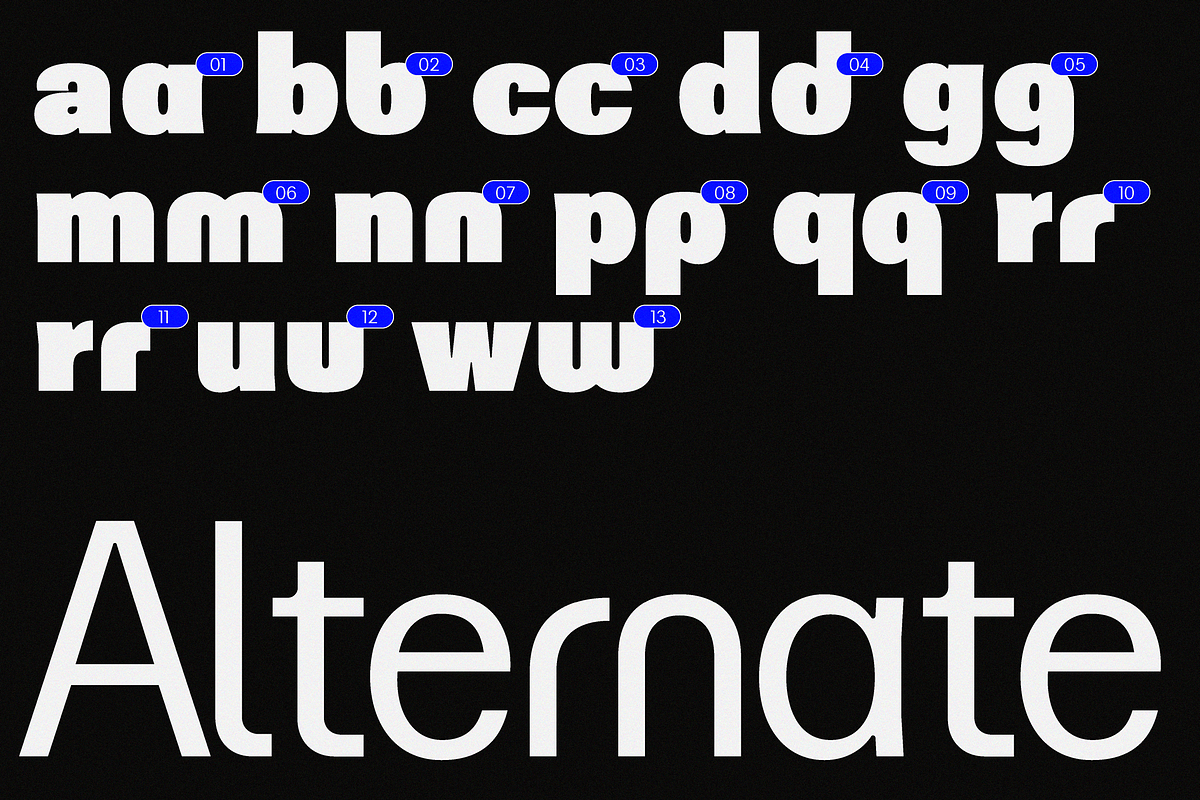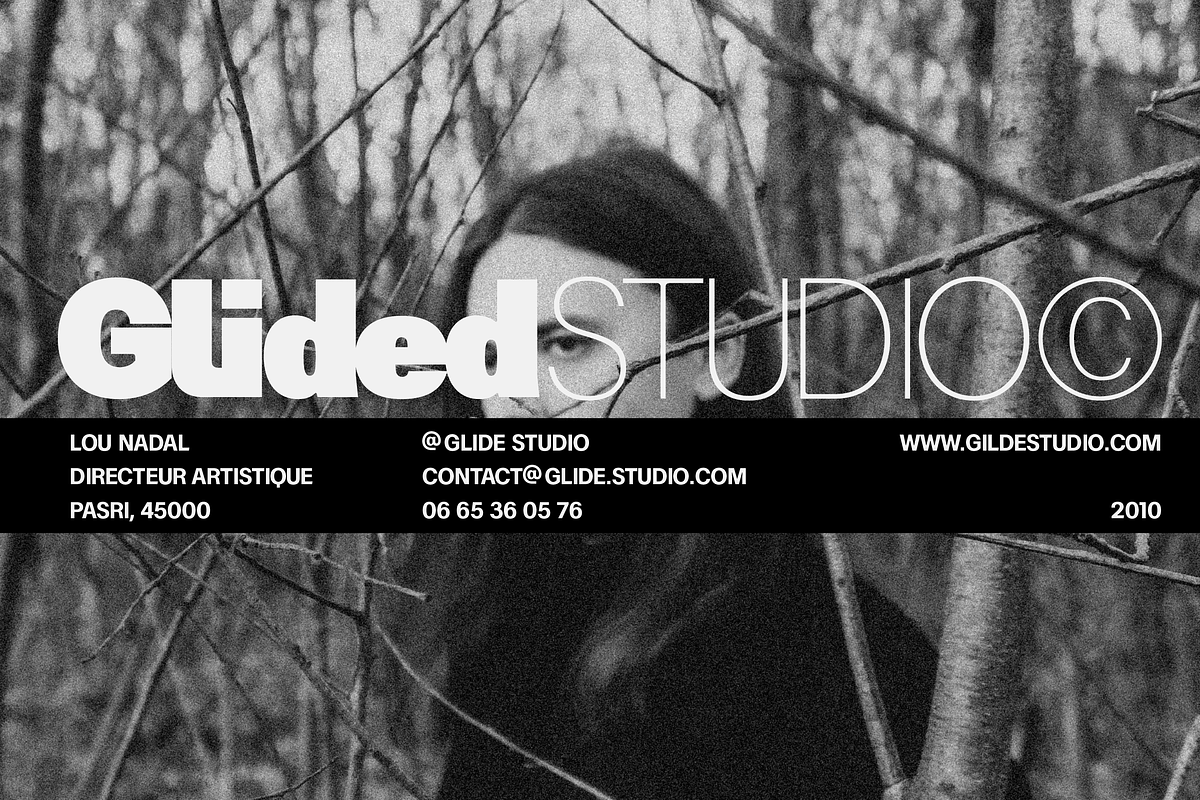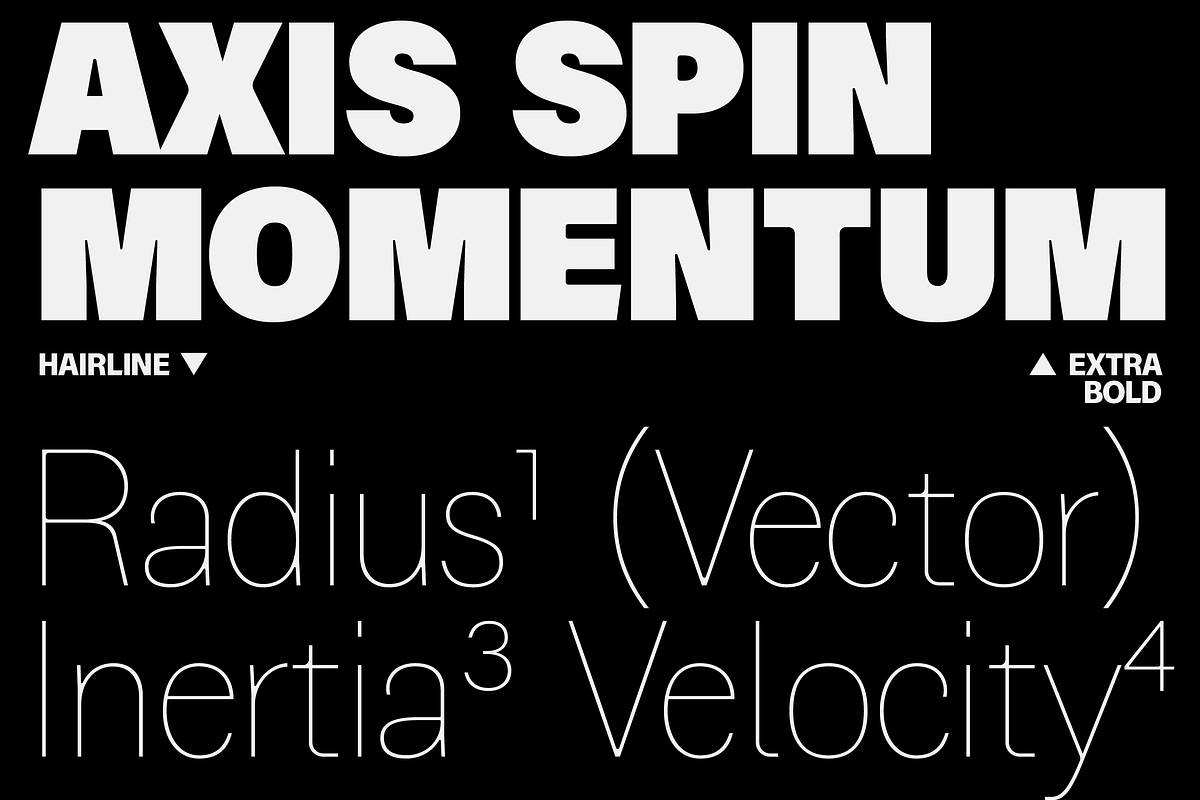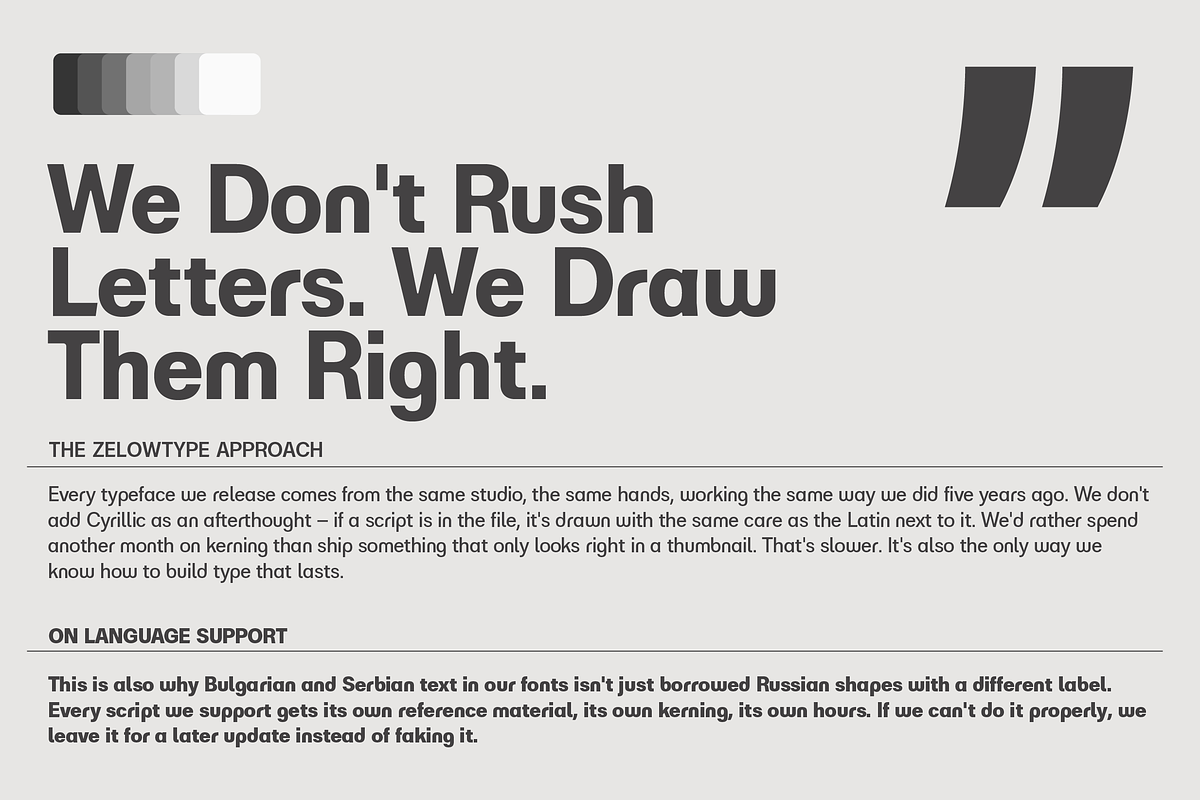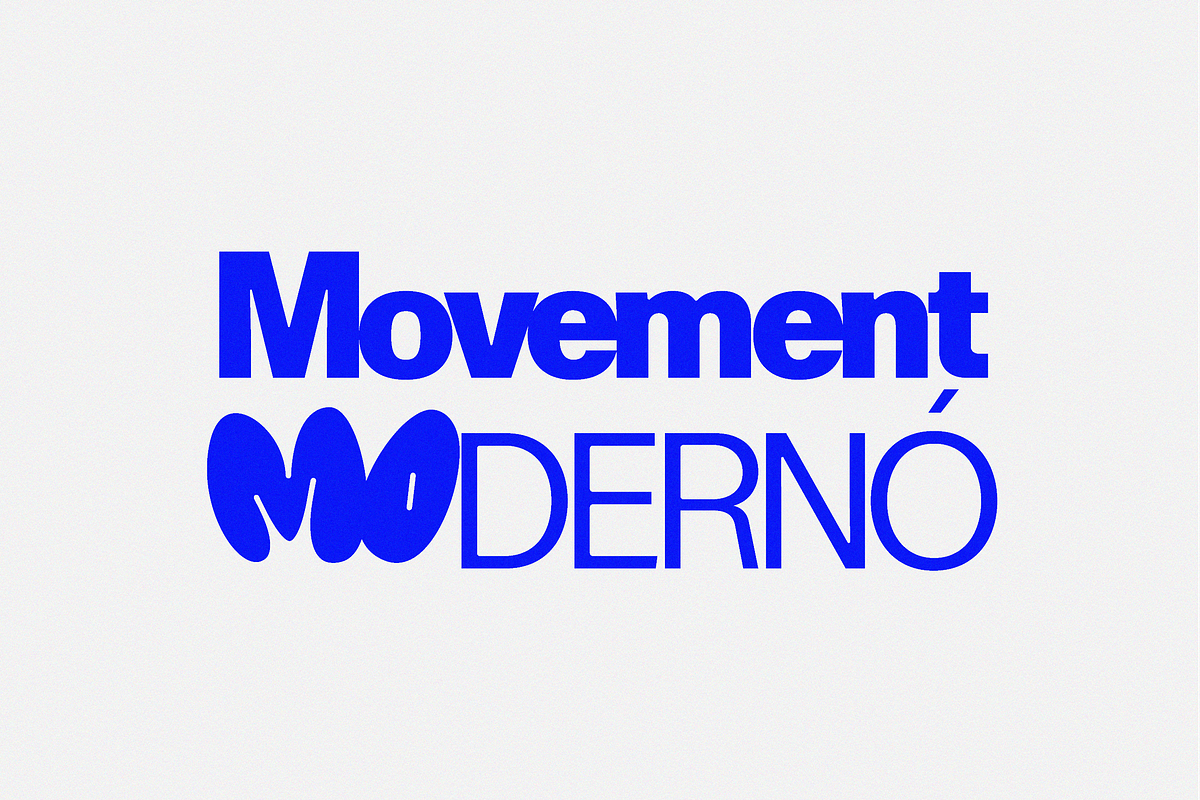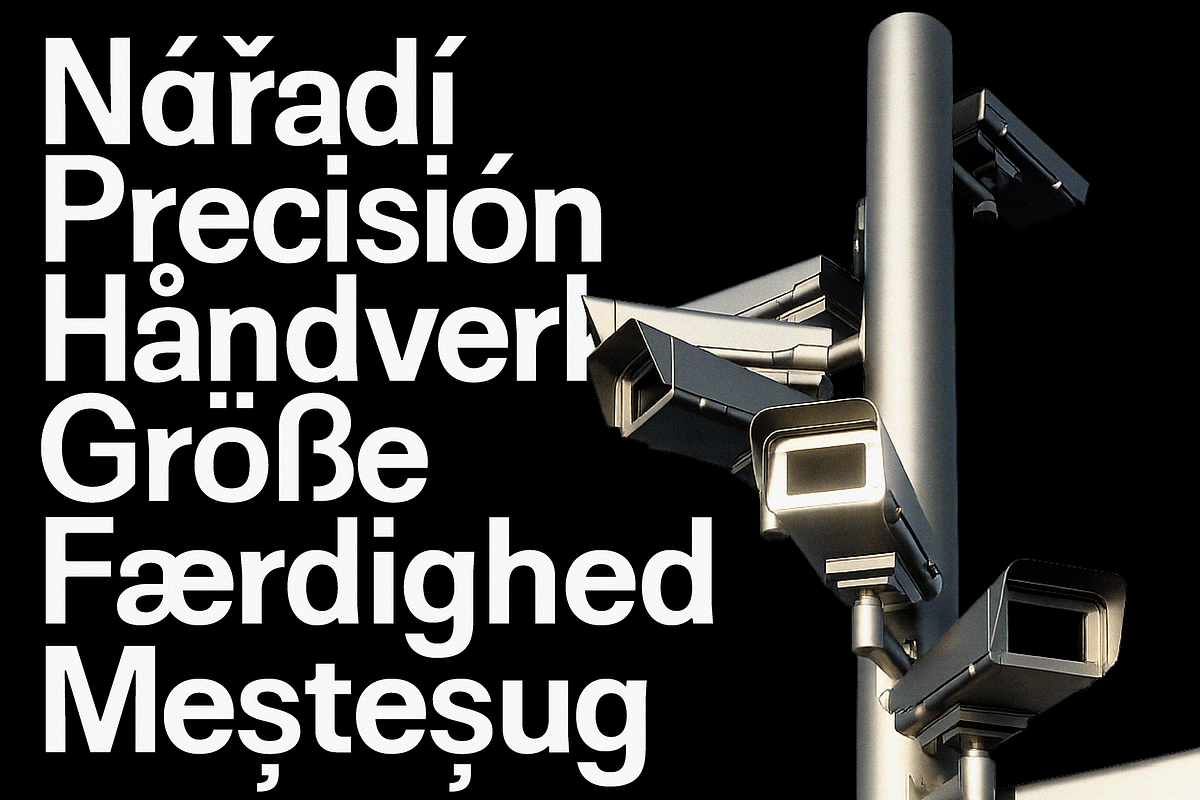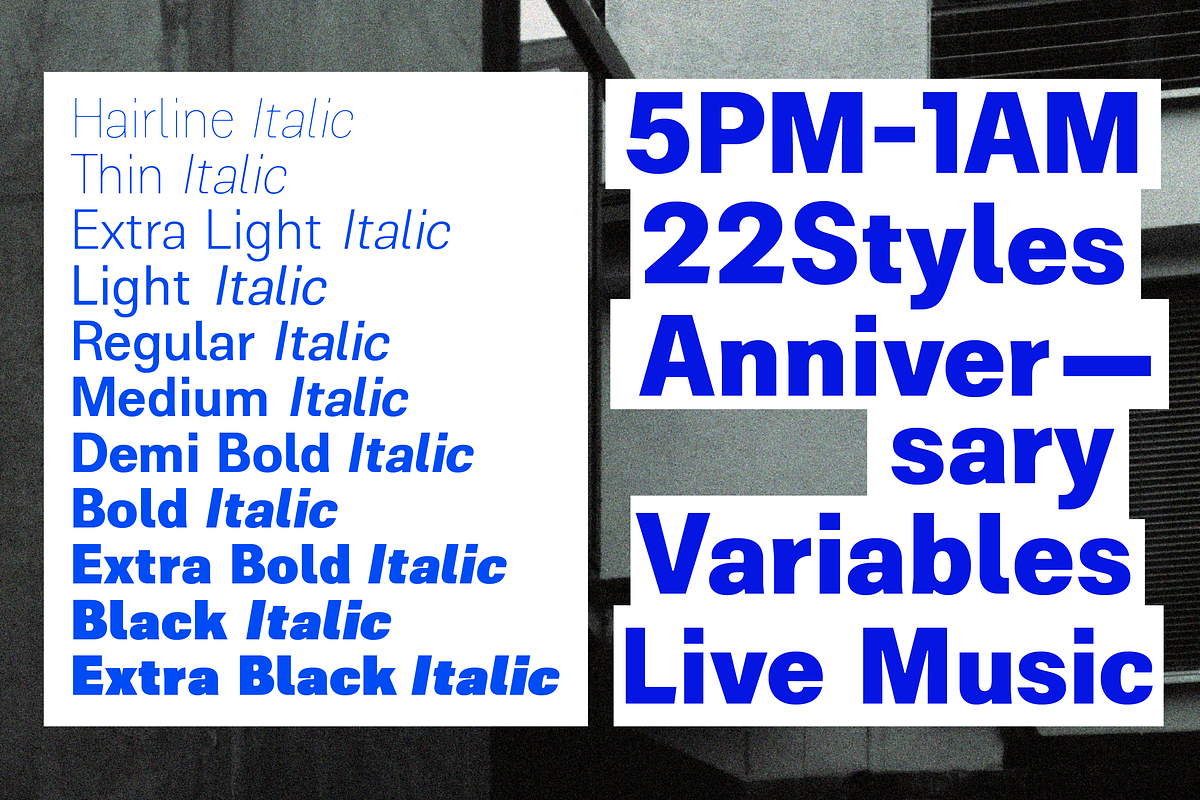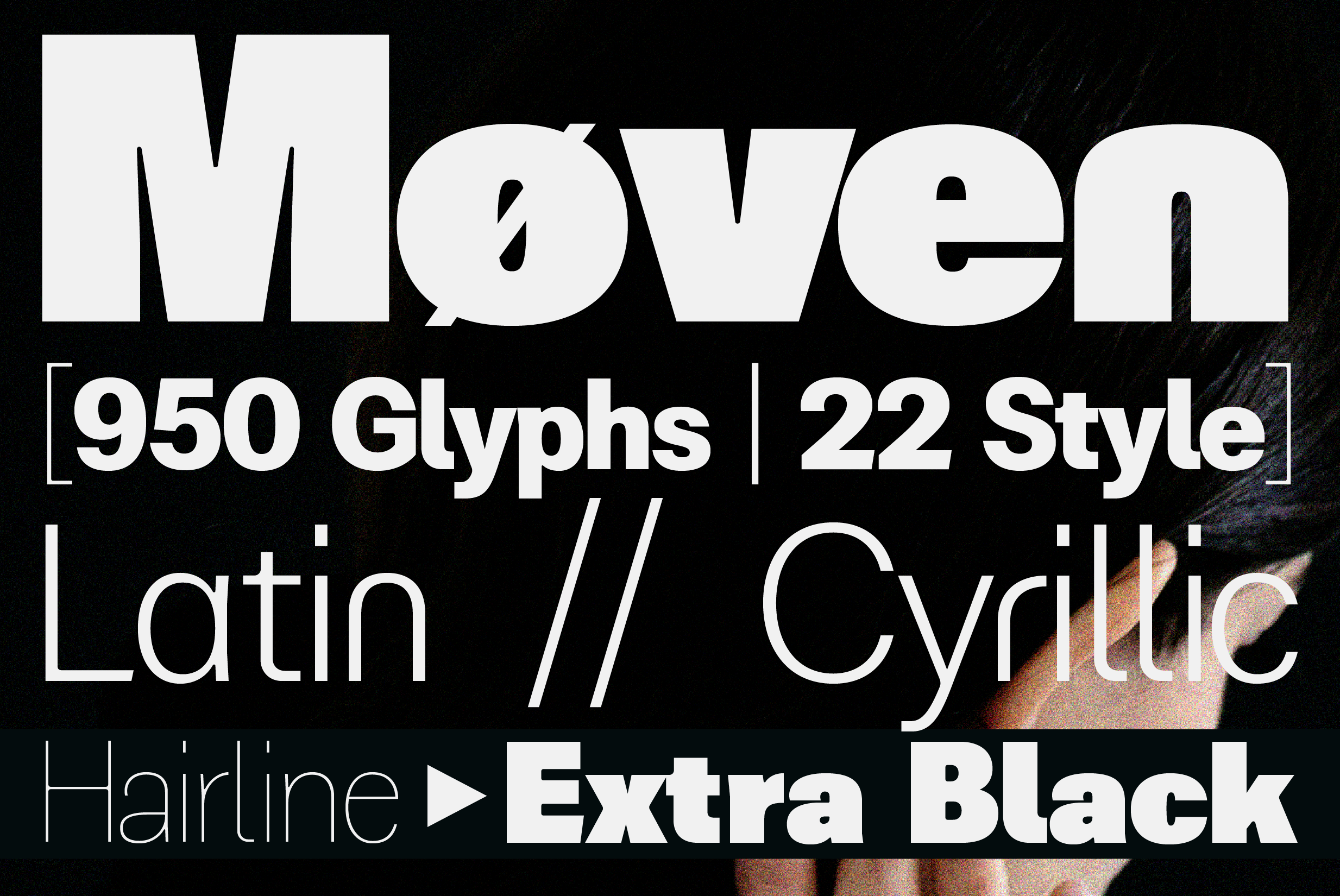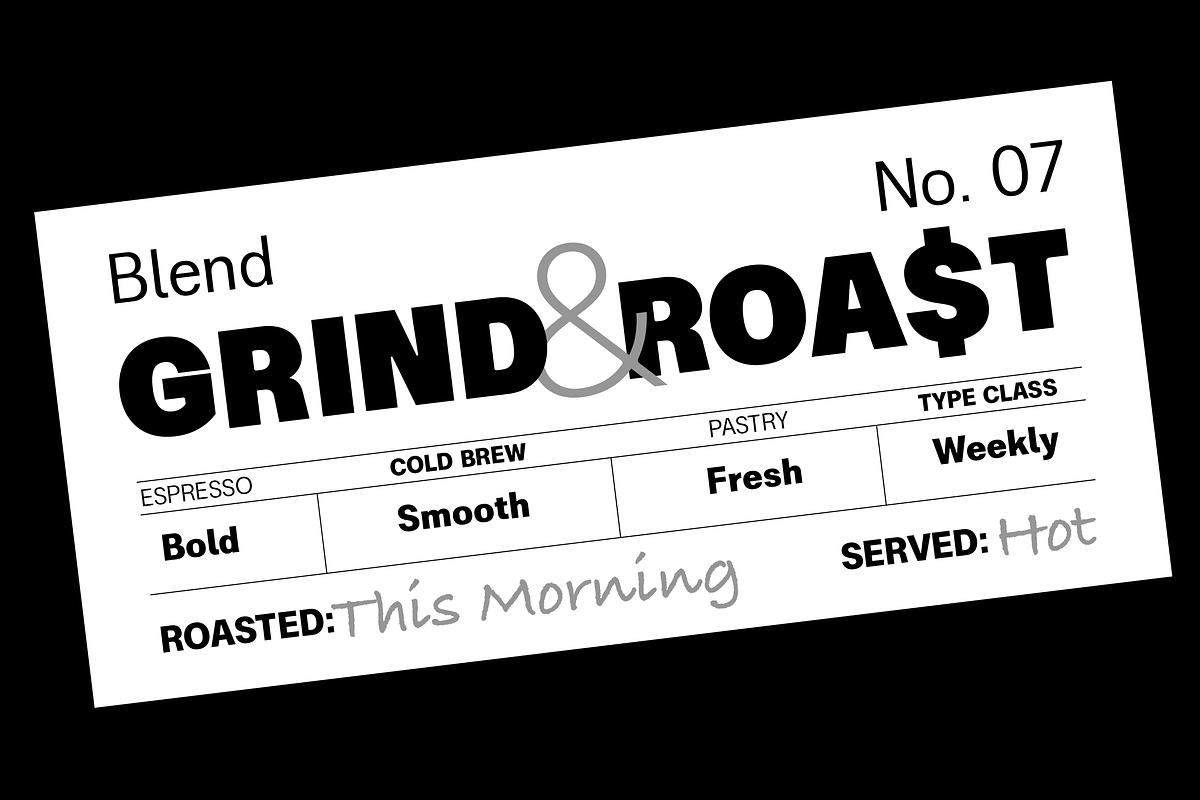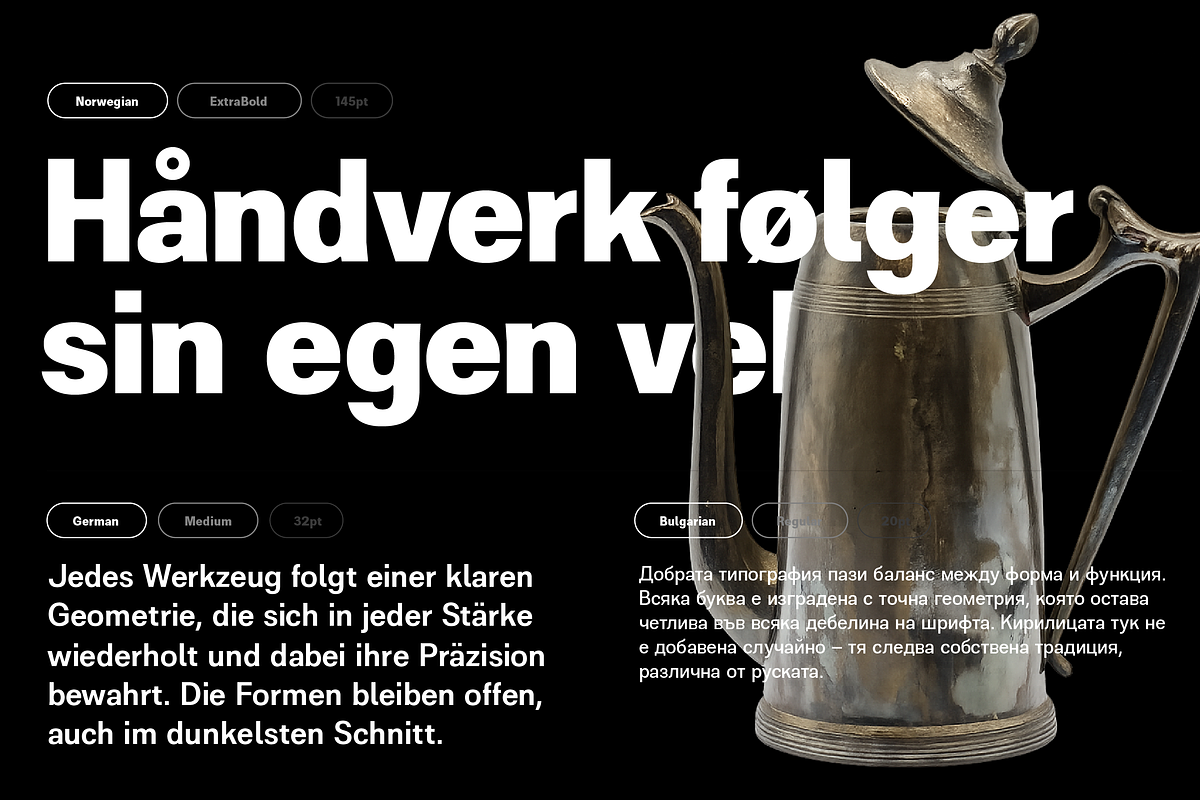
ZT Moven Sans - 22 Fonts & Variable
ZT Moven is a geometric sans-serif built for designers who need more than one alphabet done right. Where most typefaces treat Cyrillic as an afterthought, ZT Moven draws it as its own script — with dedicated localised forms for Bulgarian and Serbian, not borrowed Russian letterforms with a different label.
The family spans eleven weights from Hairline to ExtraBlack, in both upright and italic, for 22 styles total. Counters stay open and consistent at every weight, from the lightest hairline to the heaviest black — no pinched bowls, no clogged black weights.
Features of ZT Moven:
22 Styles (11 Regular + 11 Italic)
950 Glyphs
Latin Extended + Cyrillic (Russian, Ukrainian, Bulgarian, Serbian)
Dedicated Localised Forms for Bulgarian and Serbian
Stylistic Alternates (ss01)
OSF, TF, and TOSF Figures
Case-Sensitive Forms, Ordinals, Slashed Zero, Fractions
Subscript & Superscript
Extended Currency Set
ZT Moven is perfect for brand identity, logo design, editorial layouts, social media graphics, packaging, posters, and any project that needs a clean geometric sans that still looks right in Cyrillic markets.